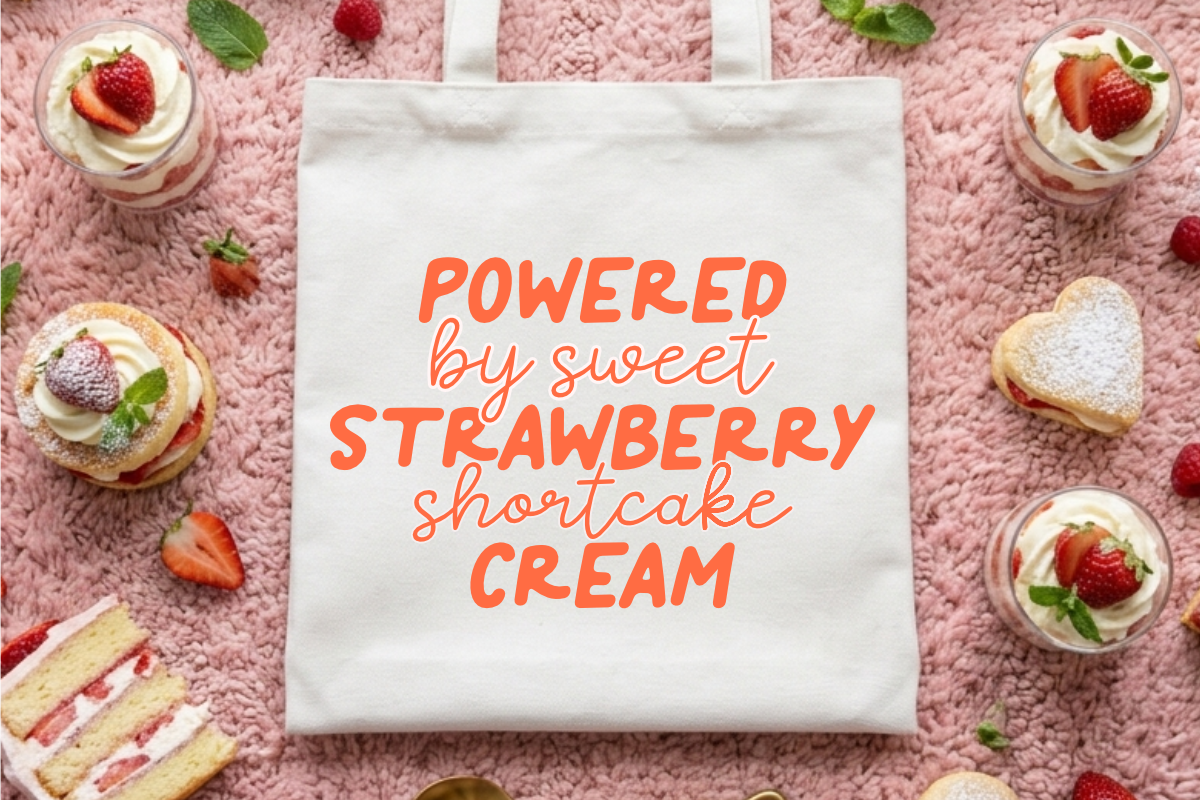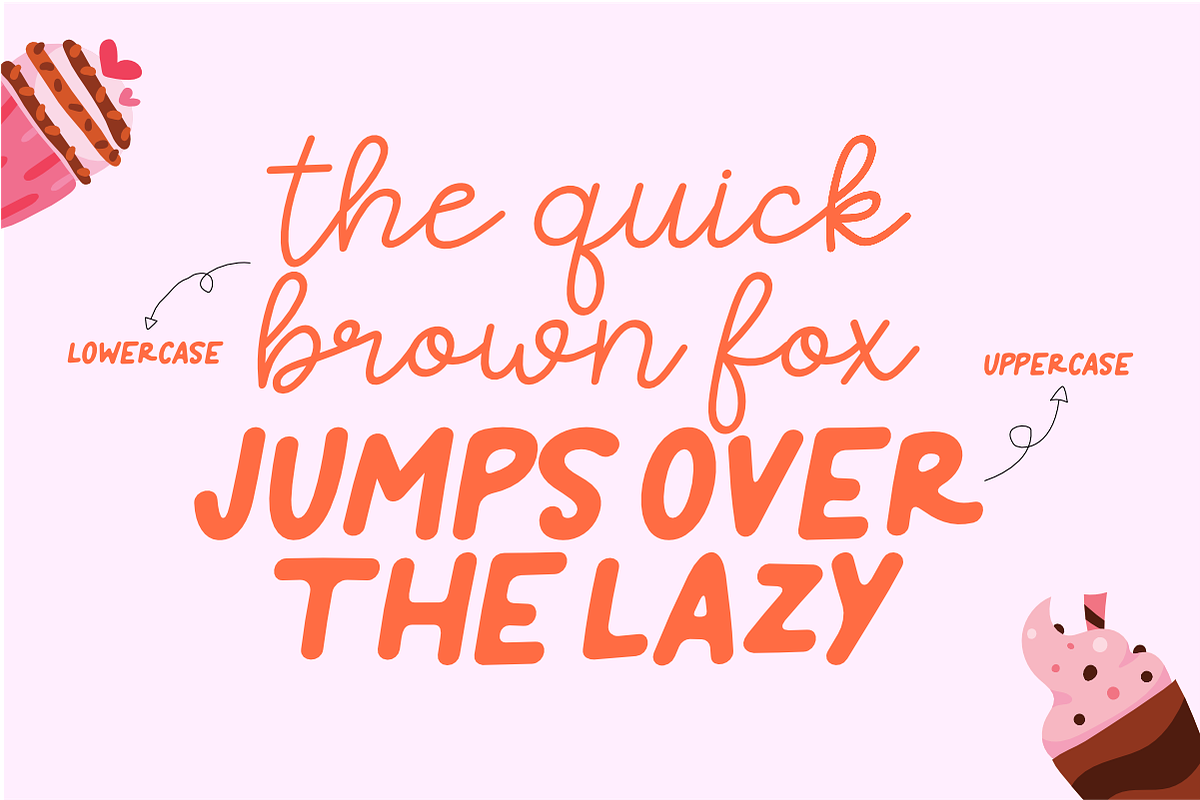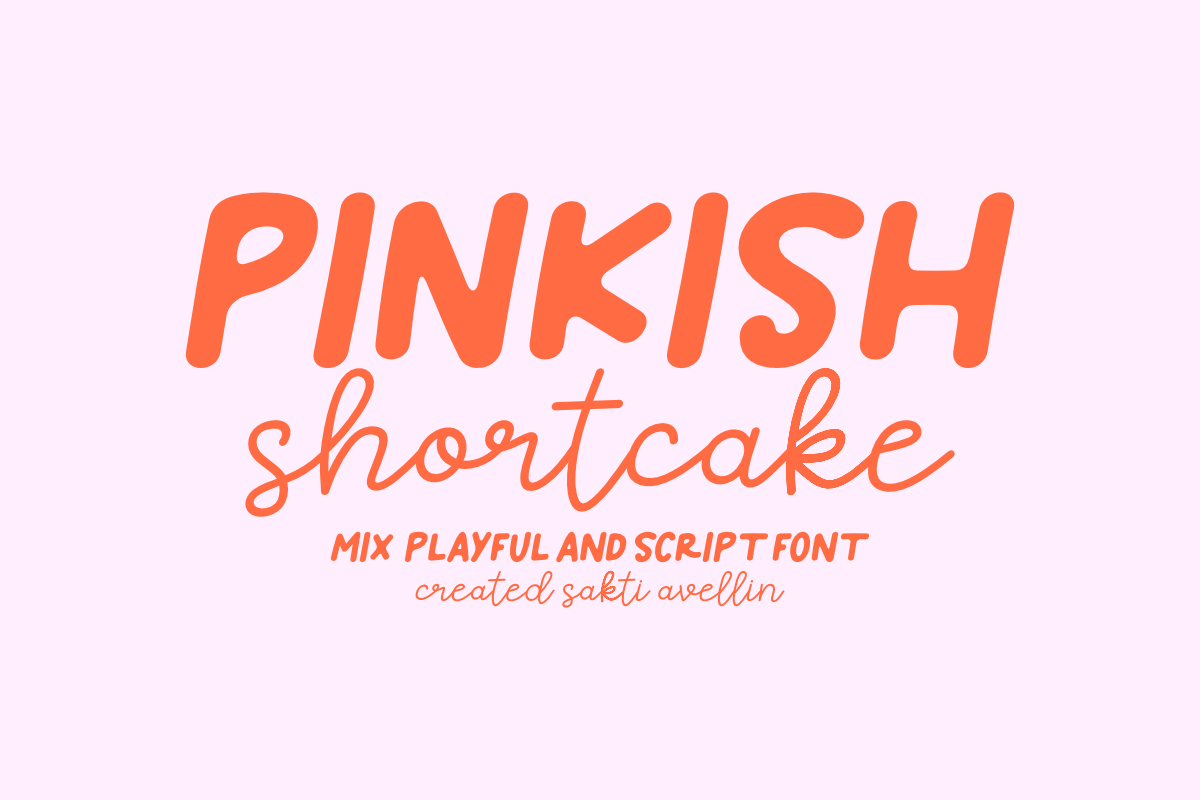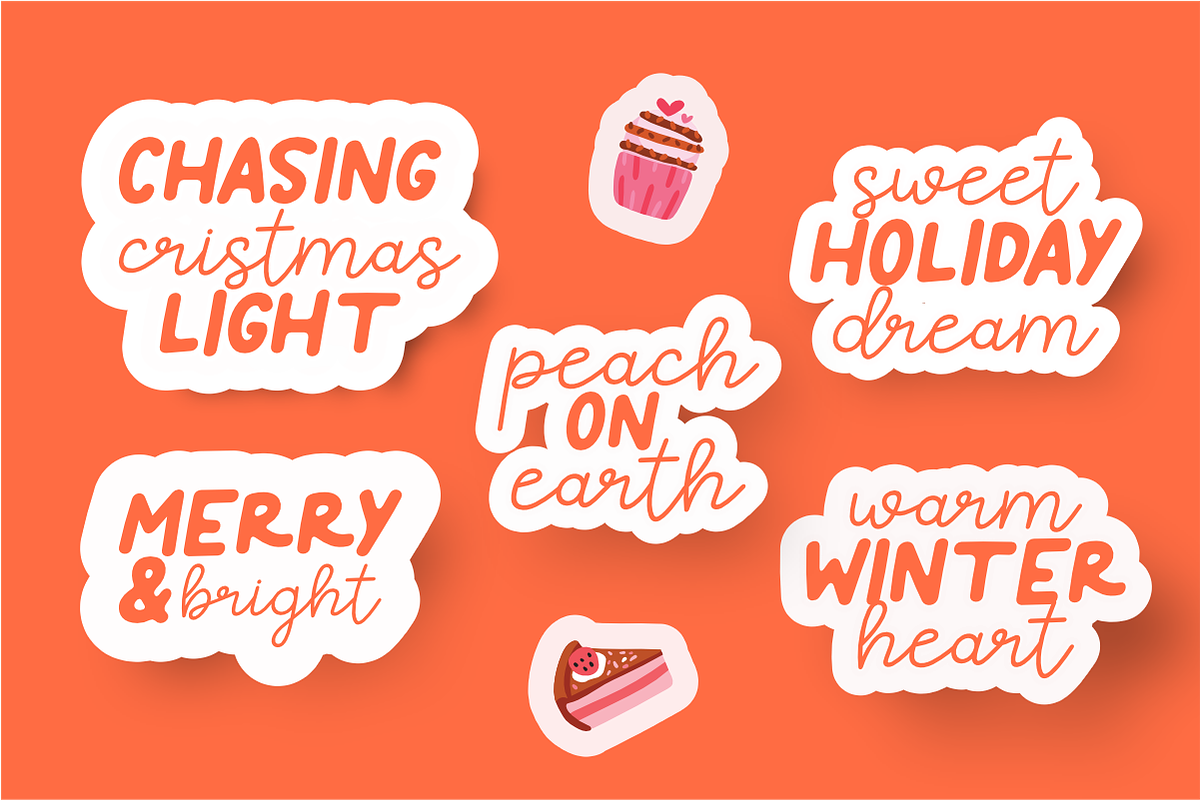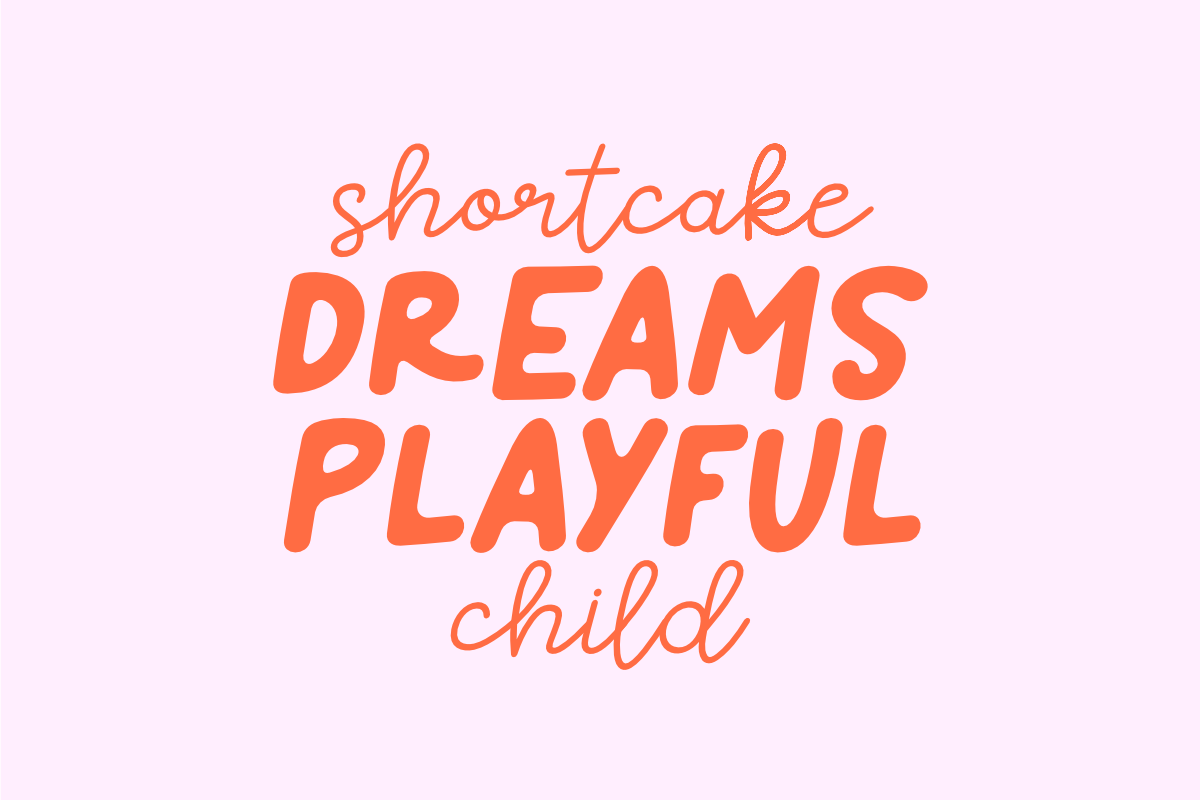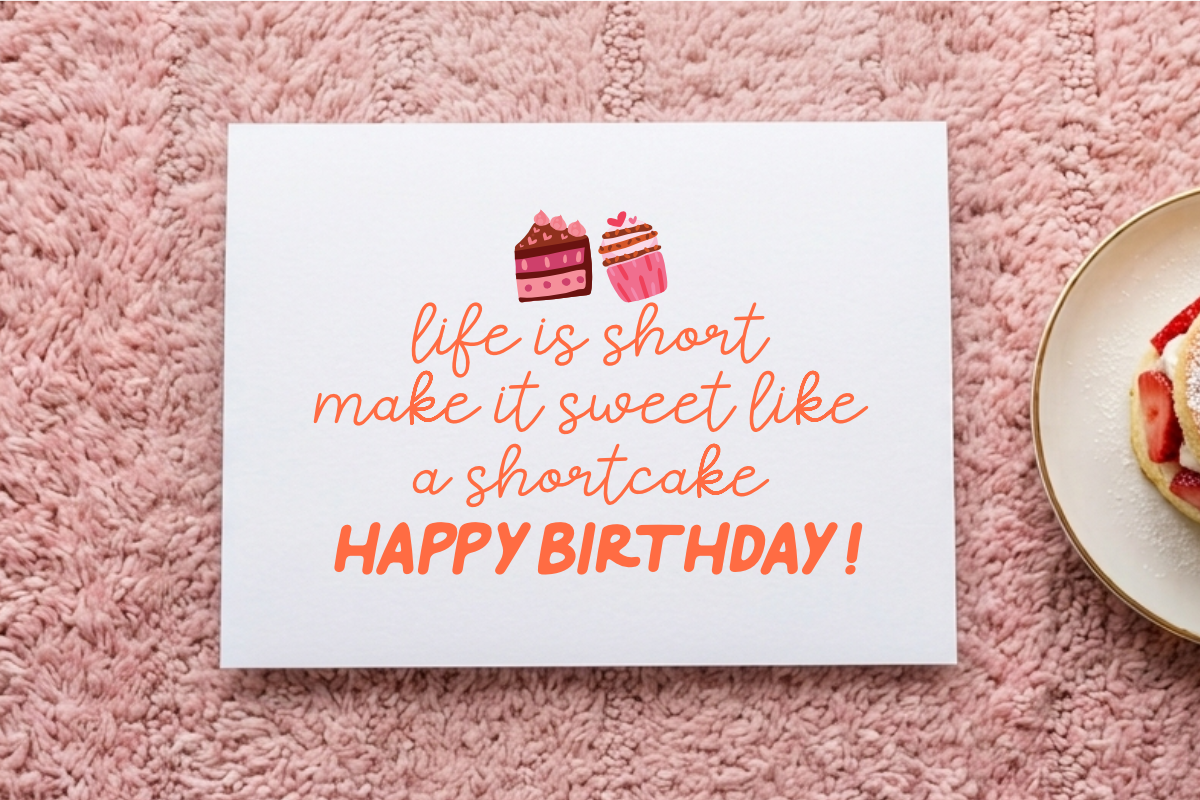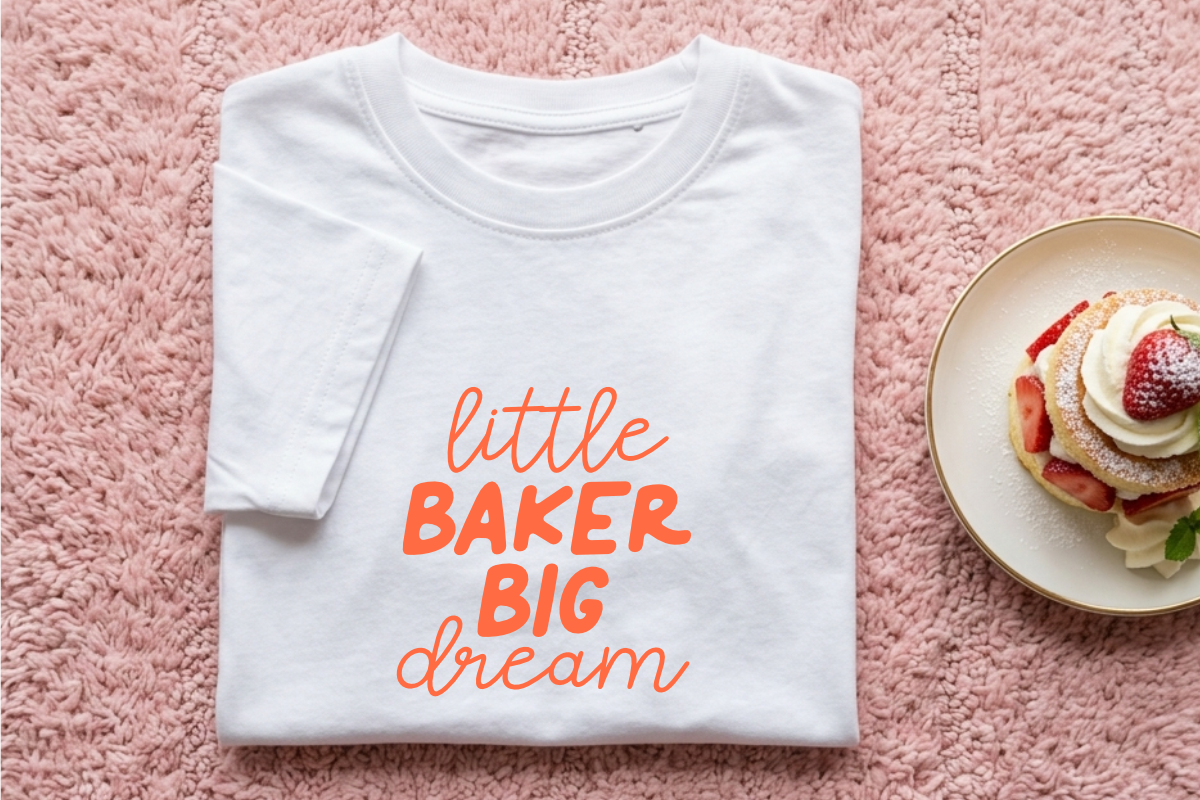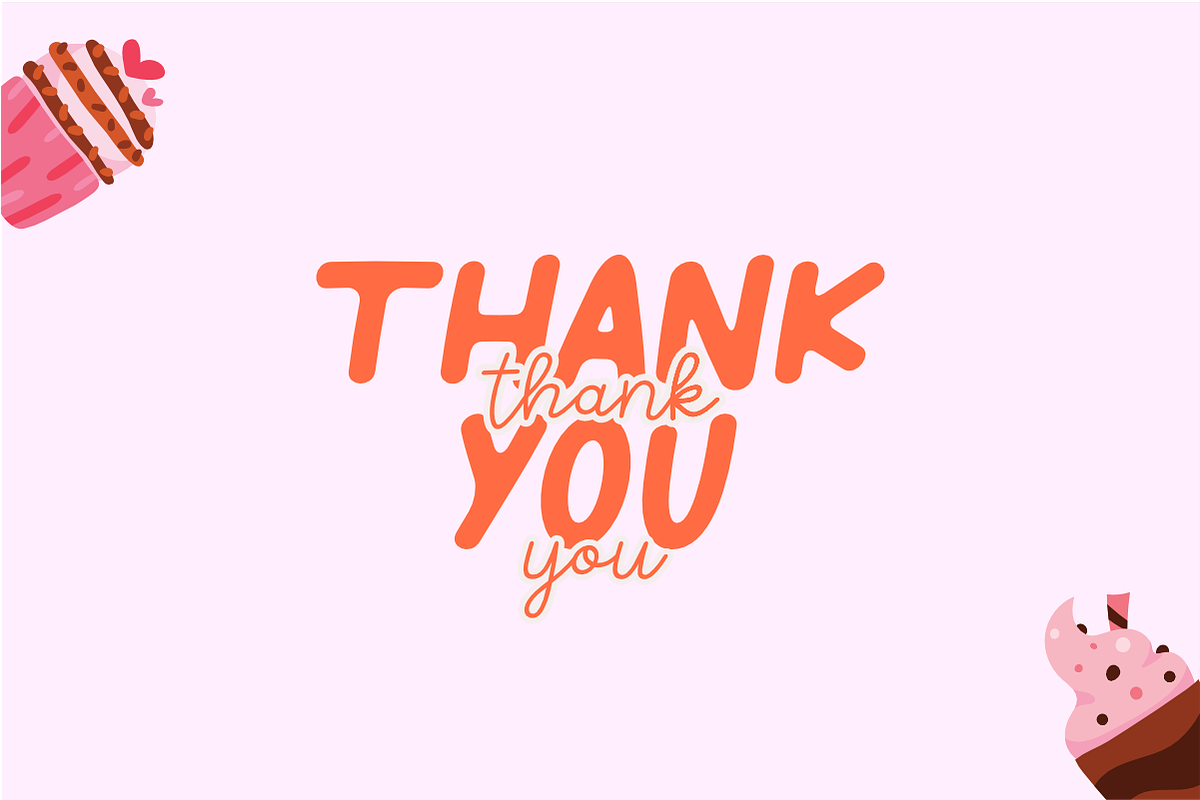
Pinkish Shortcake - Playful Mix Font
Pinkish Shortcake is a delightful and versatile mix playful and script font duo designed to bring a sweet, handcrafted charm to your creative projects. This lovely pairing features a bold, bouncy display typeface for "PINKISH" and a smooth, flowing handwritten script for "shortcake," making it an ideal choice for bakery branding, cute stickers, birthday invitations, children's products, and cheerful social media graphics. Its balanced and organic aesthetic ensures your designs feel warm, inviting, and full of personality. Whether you are creating festive packaging, apparel, or whimsical stationery, Pinkish Shortcake adds a charming touch to every design.